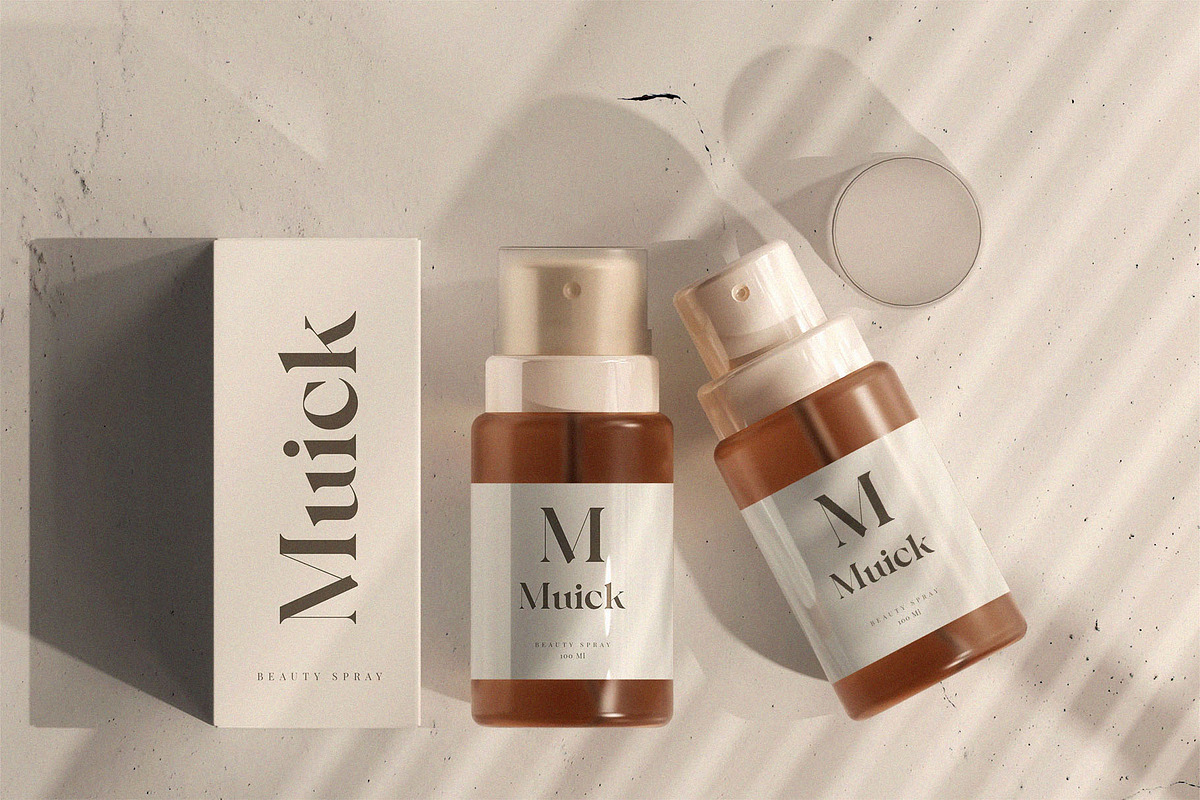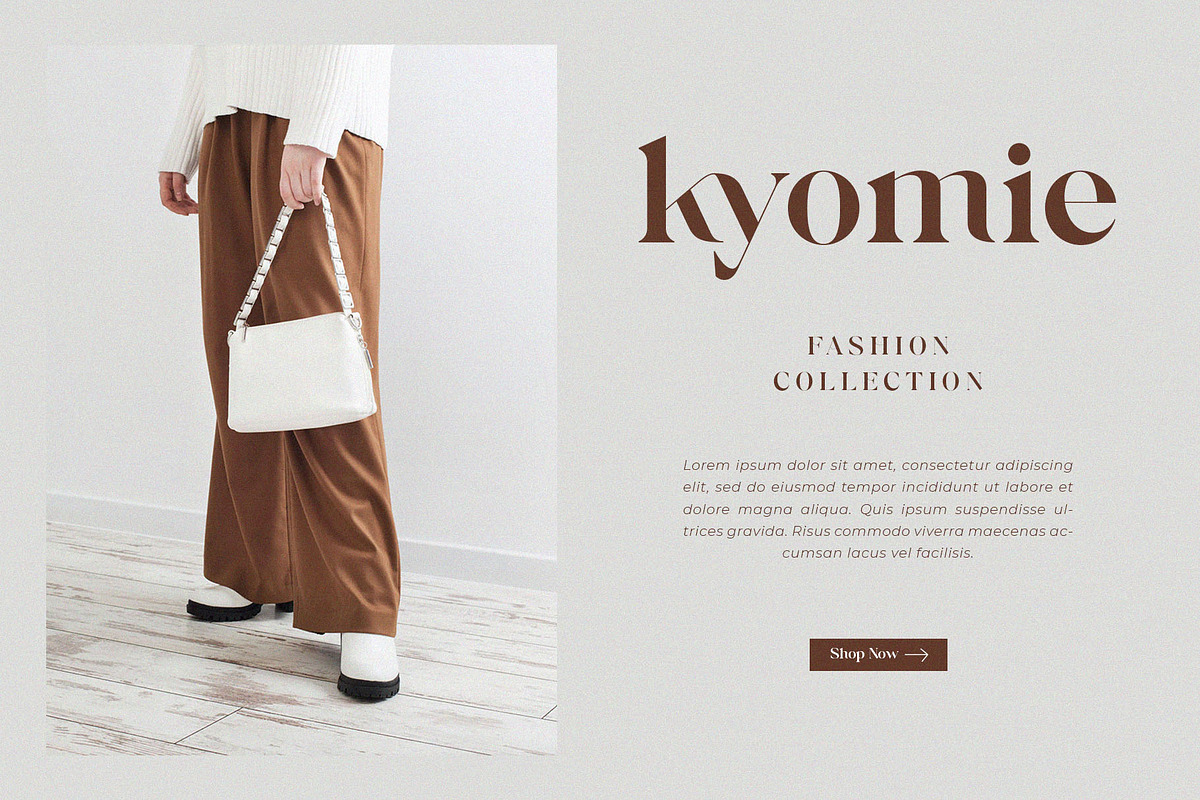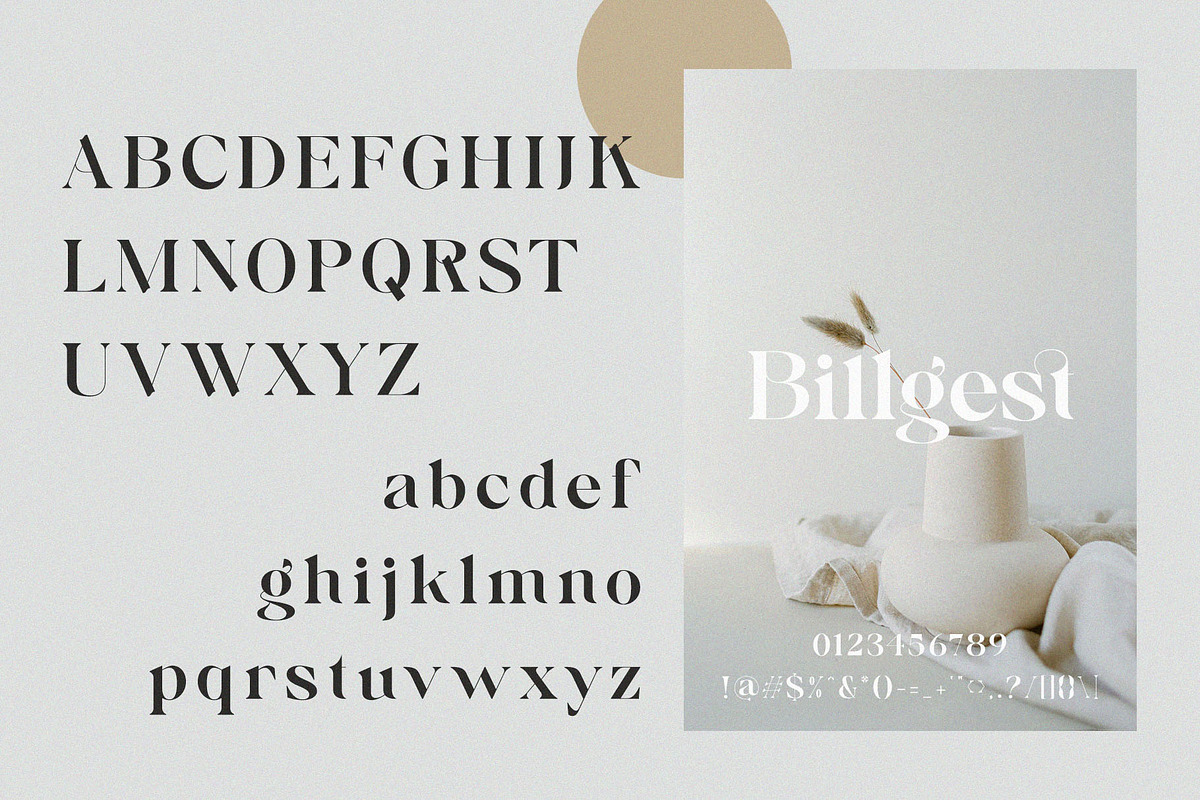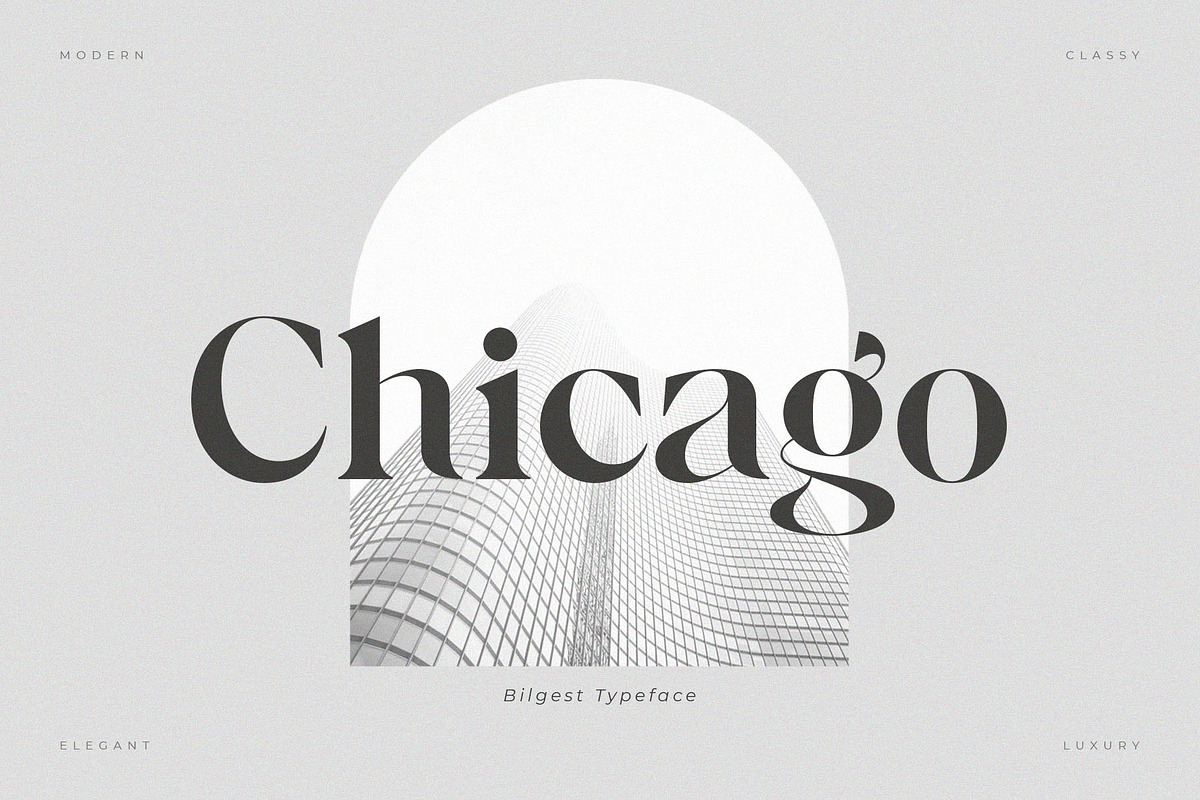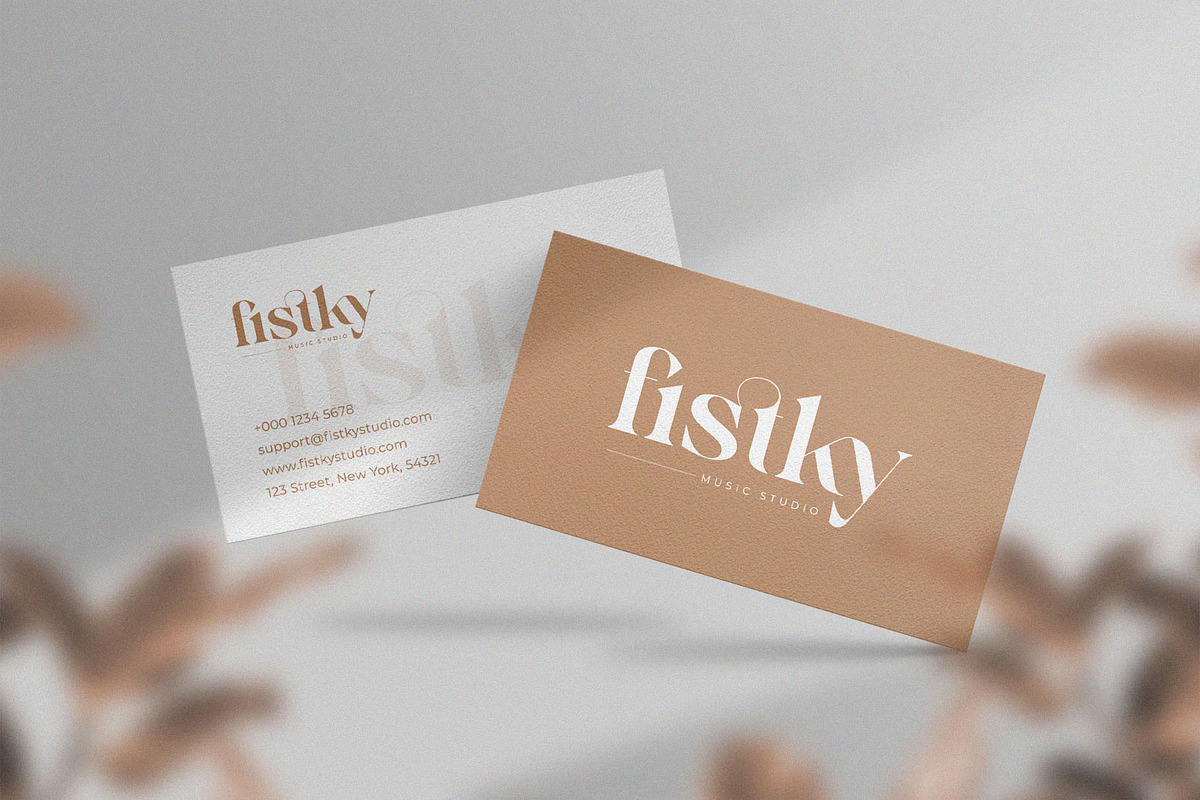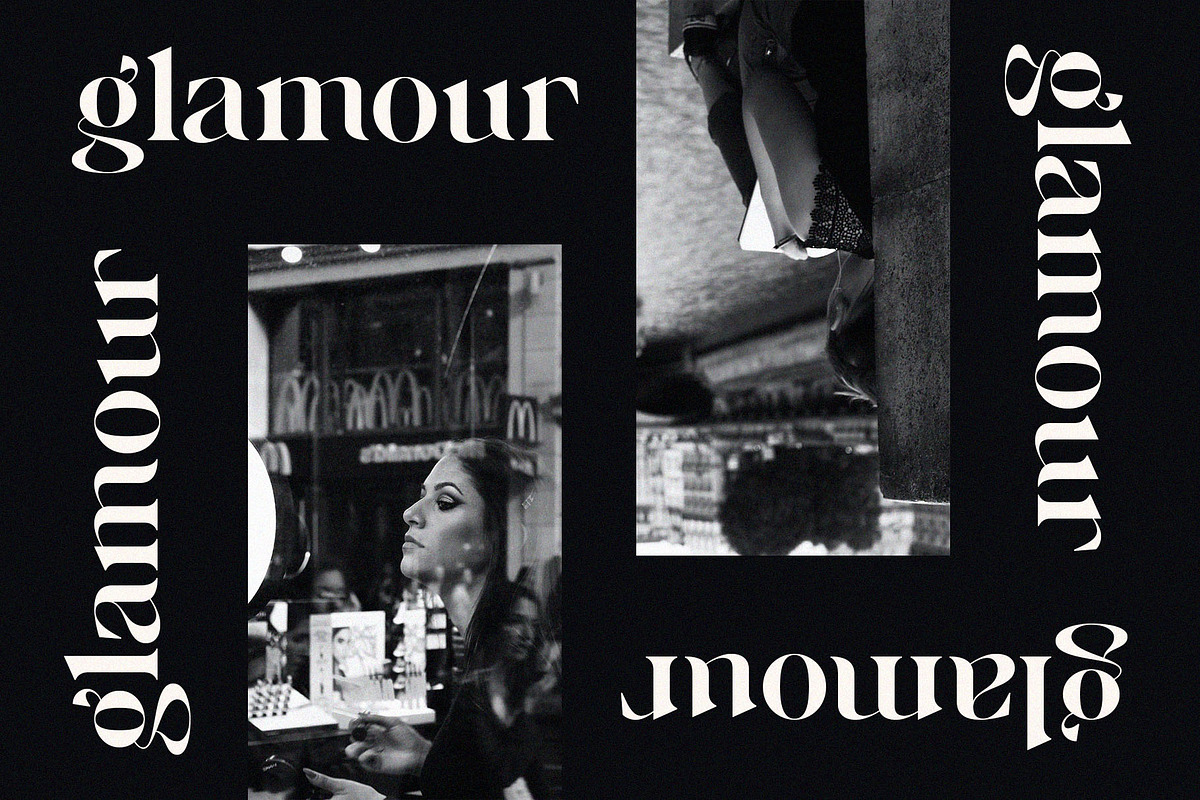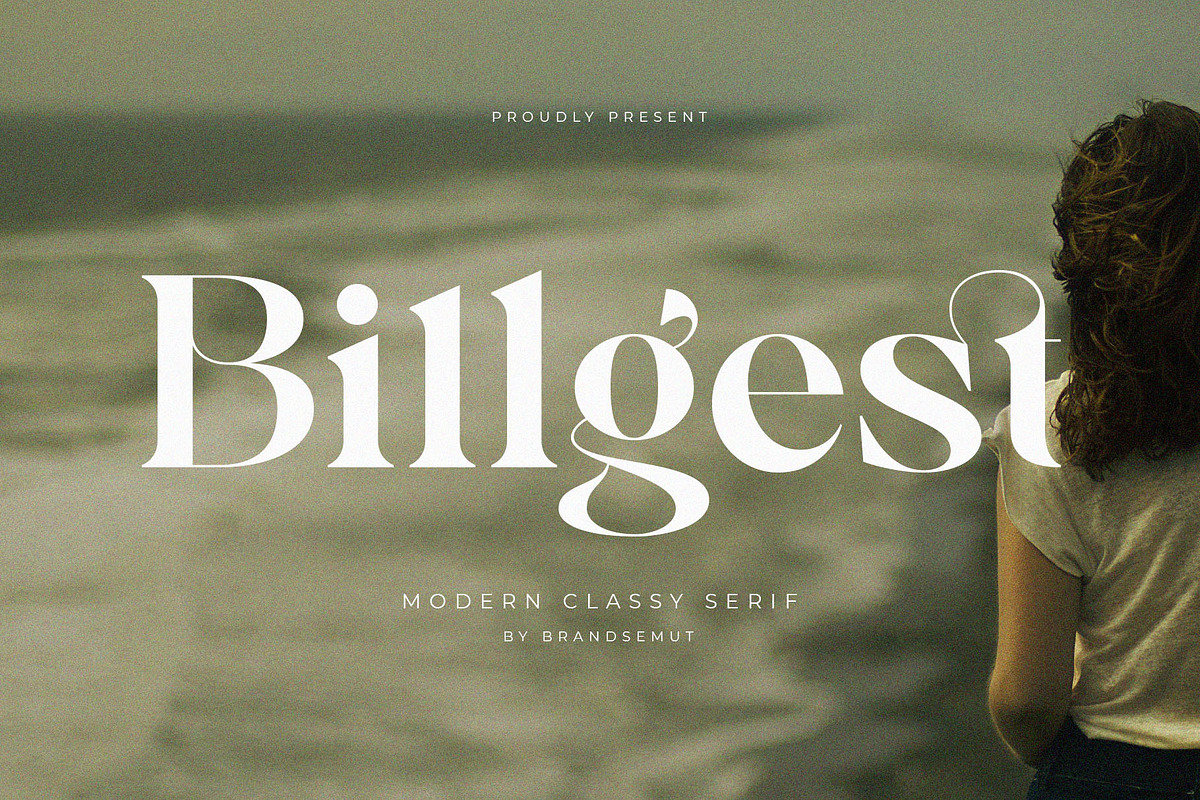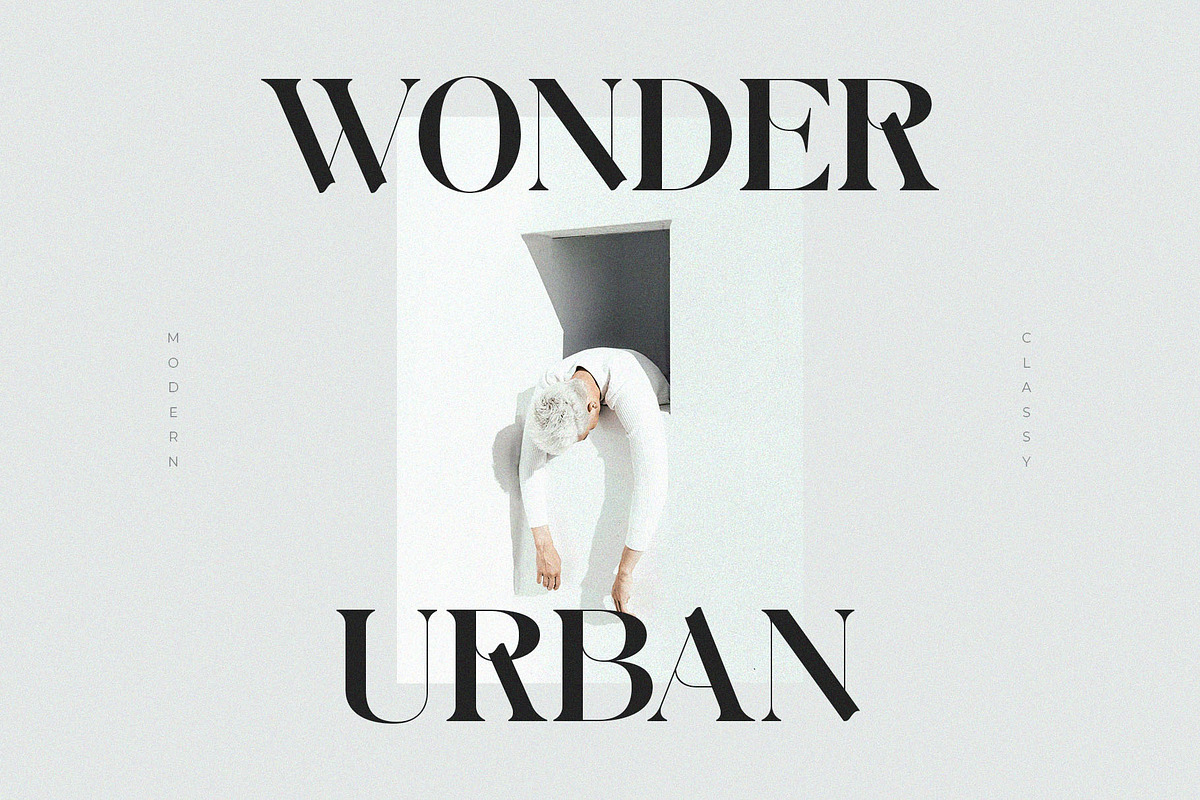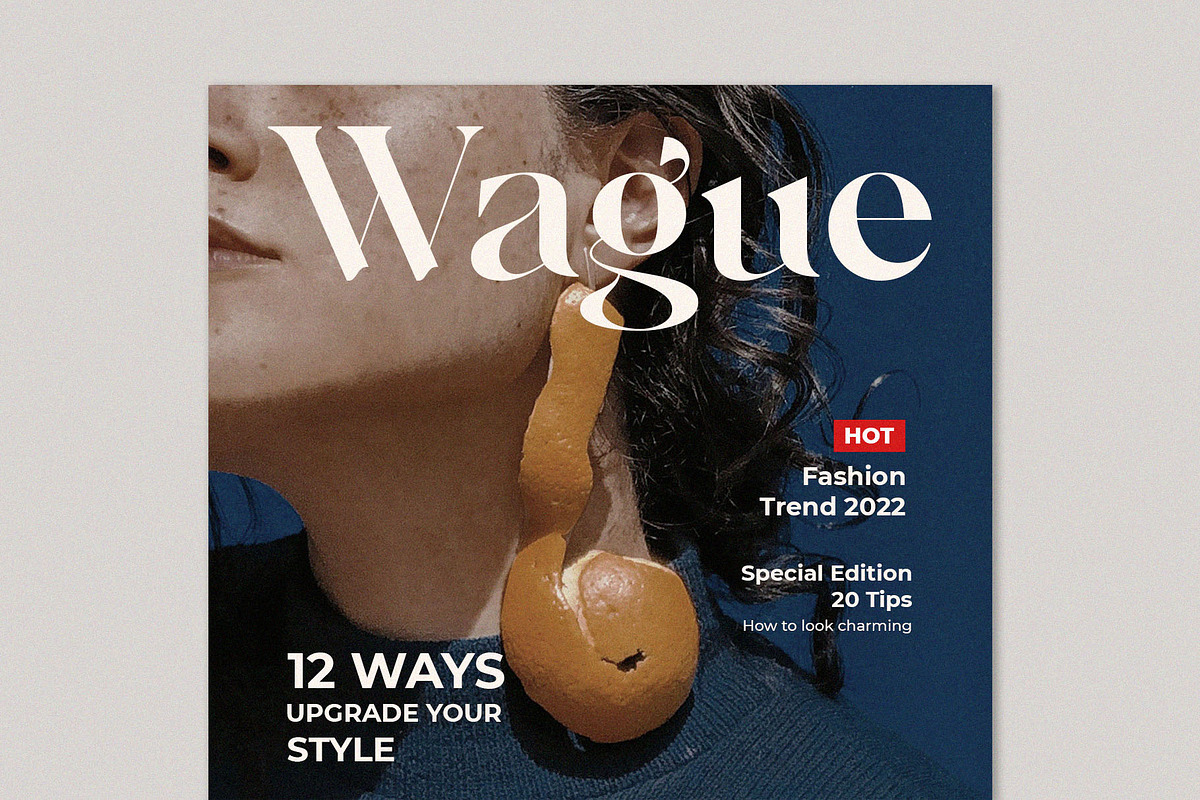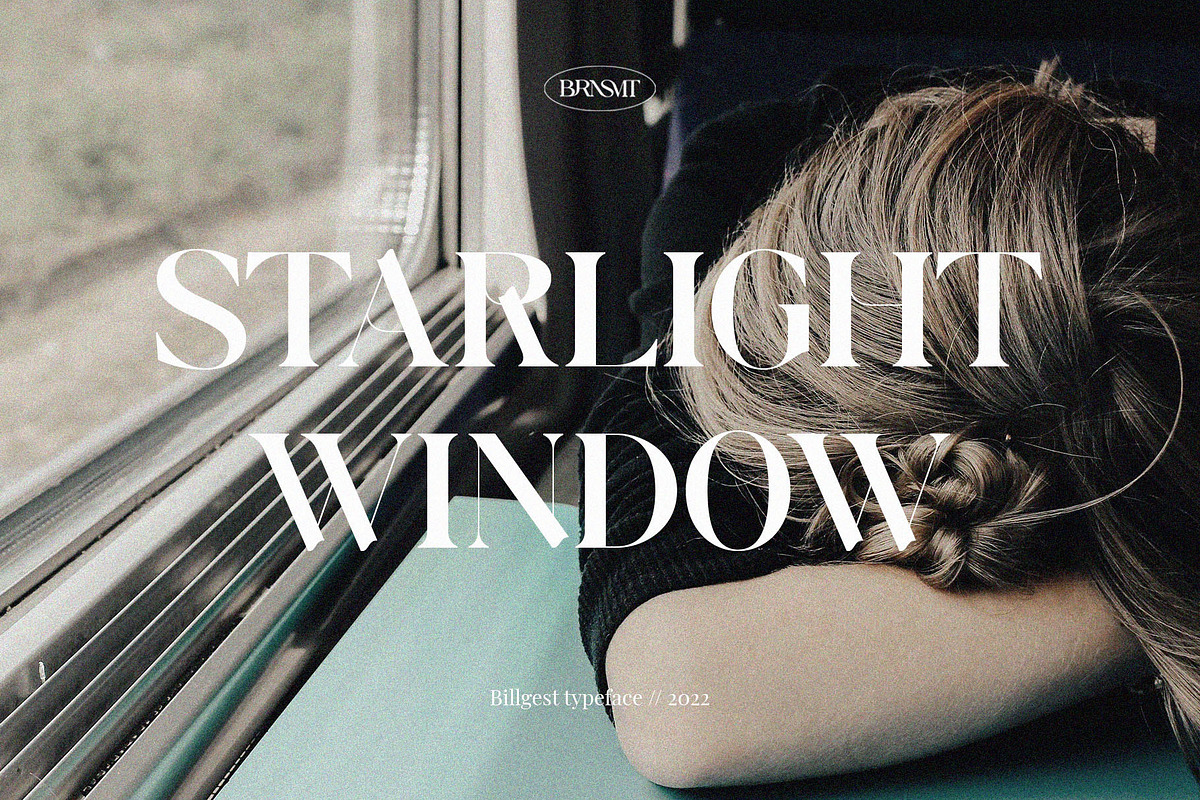
Billgest || Modern Classy Serif
Introducing Billgest Font Serif. Billgest is a modern and classy typeface, best used as a display for headings, logos, branding, magazines, product packaging and invitations. Billgest come with clean lines and smooth curves give any project an extra touch of class.